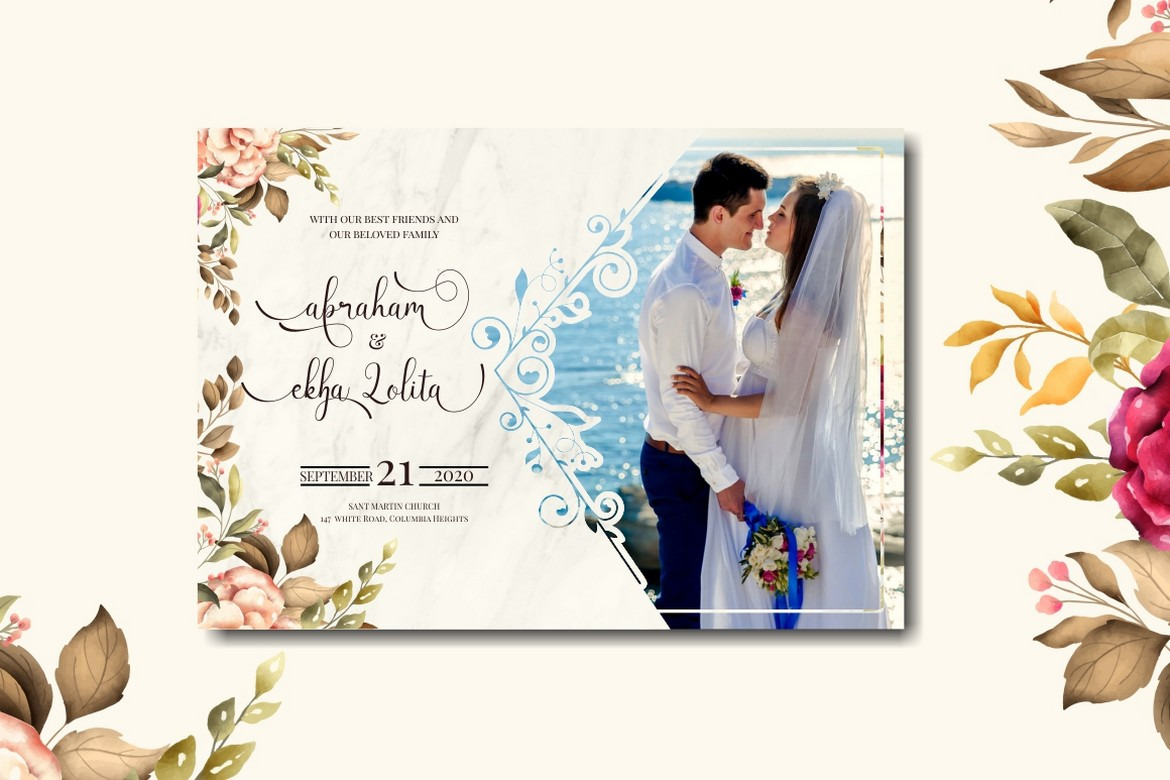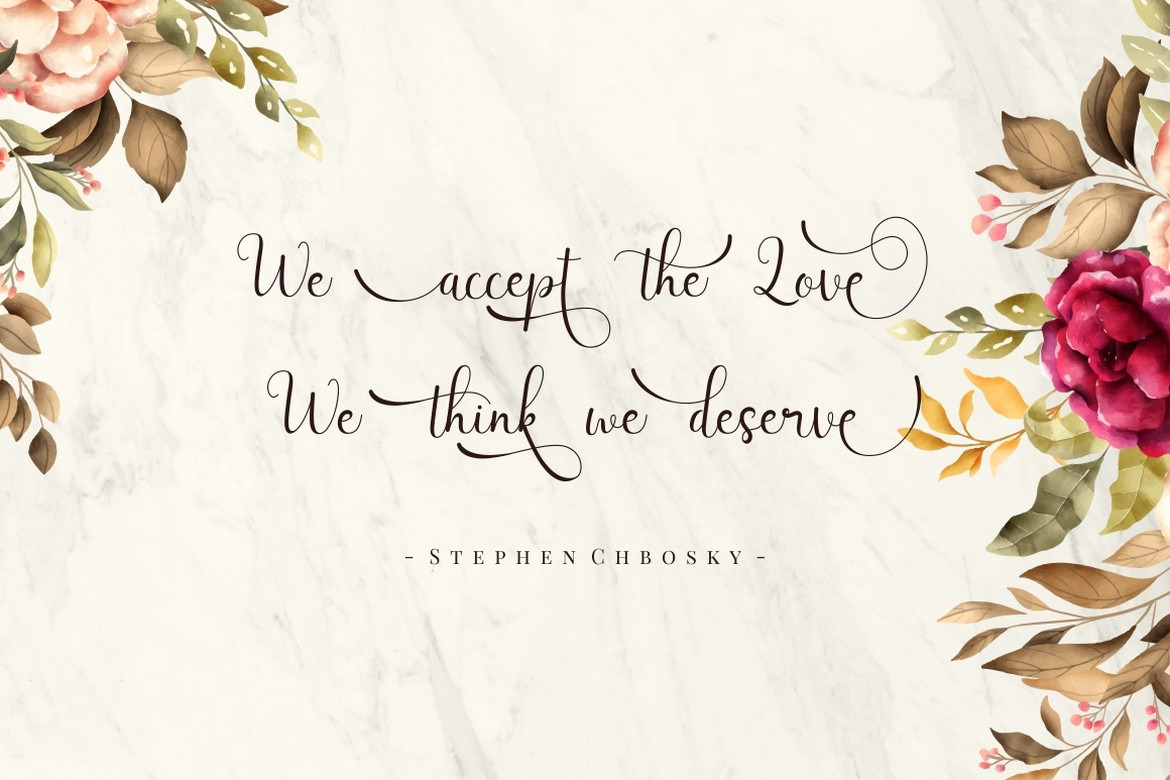
Latisha - Elegant Modern Script Font
Latisha
Introducing Latisha, a new elegant modern script font. a lovely, elegant and sweet script font.
Latisha is perfect for styling logos, stationery, wedding event, invitation, quote, social media, websites and so much more!
Come with Opentype feature with a lot of alternates, its help you to make great lettering.This font is also support multi language.
- Alternate
- Number, Punctuation And Symbols
- Multilanguage Support.